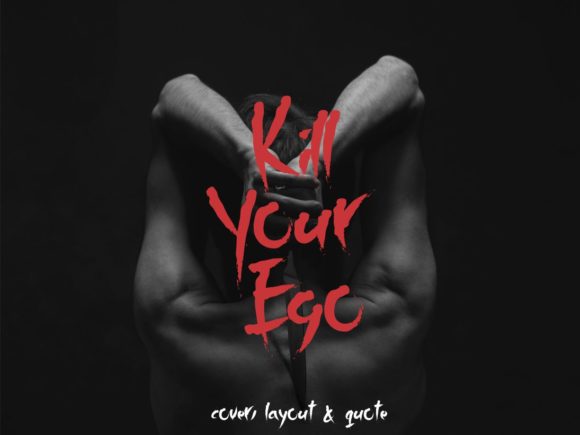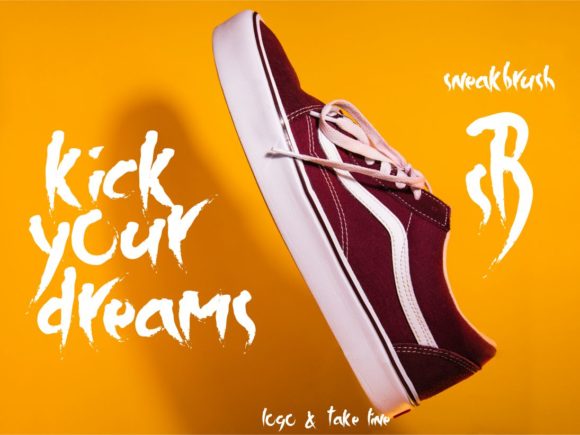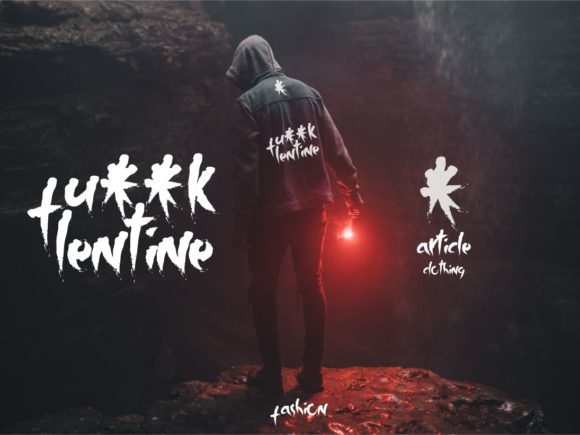
Sumuray Brush Font
About Sumuray Brush Font
The Sumuray Brush is a striking brush font. It was inspired by samurai swords and is perfect for layouts, quotes, clothing, and much more!